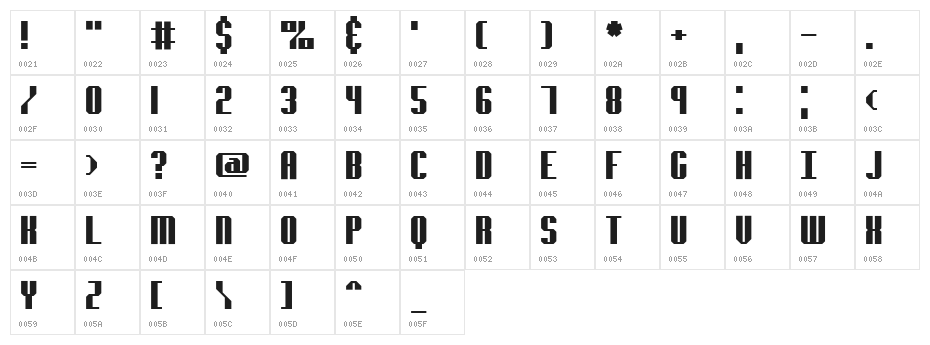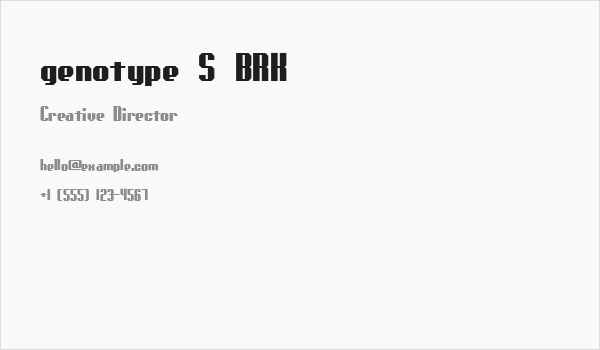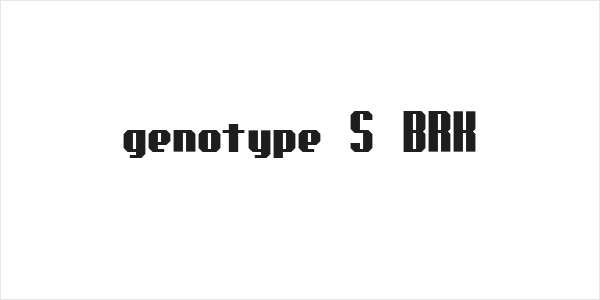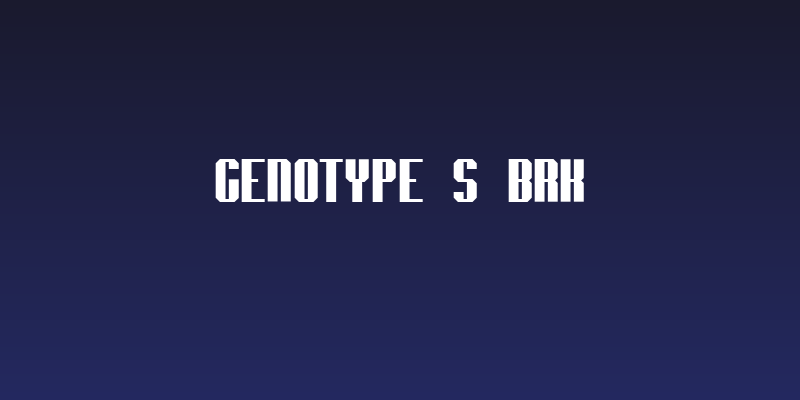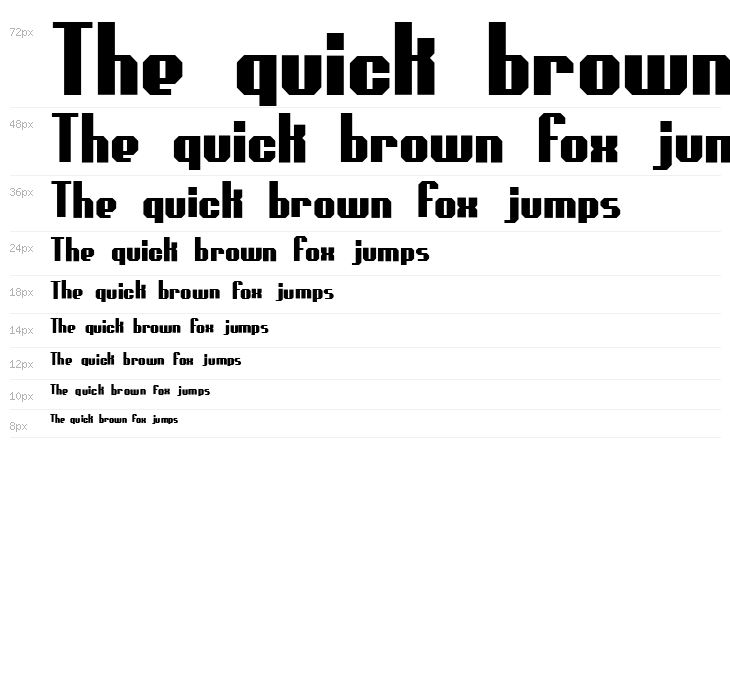
genotype S BRK Font
genotype S BRK Description
This font features a bold, geometric design with sharp angles and a strong presence. The uppercase letters are blocky and uniform, creating a sense of stability and strength. The lowercase letters maintain the geometric style but with slightly more variation in form, adding a touch of uniqueness. Numbers are consistent with the overall design, emphasizing clarity and boldness. Special characters are designed to match the angular and robust style, ensuring a cohesive look across all elements. This font is ideal for projects that require a modern and impactful aesthetic.